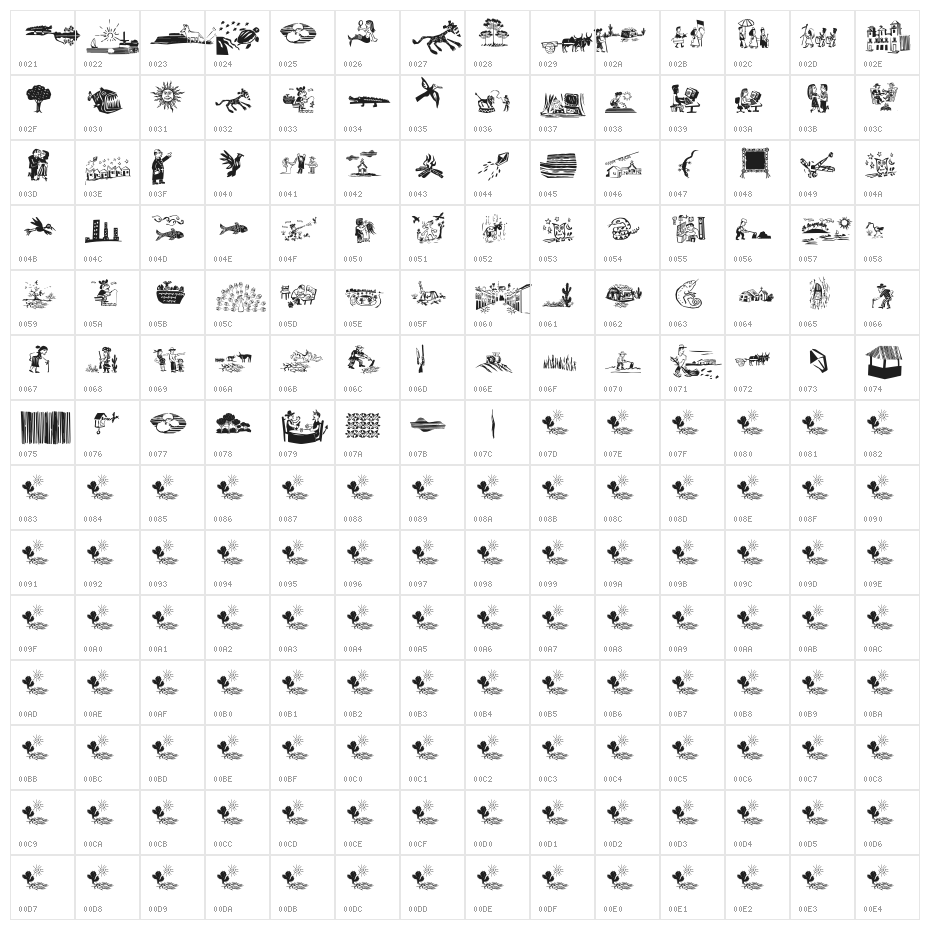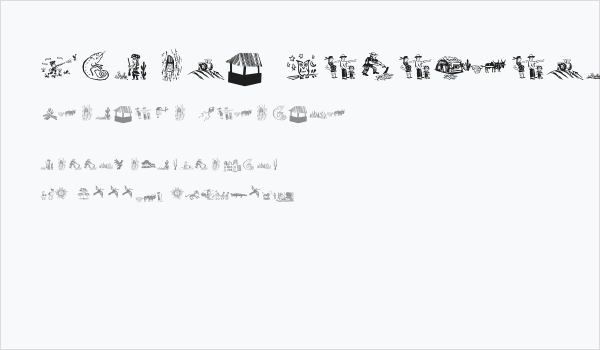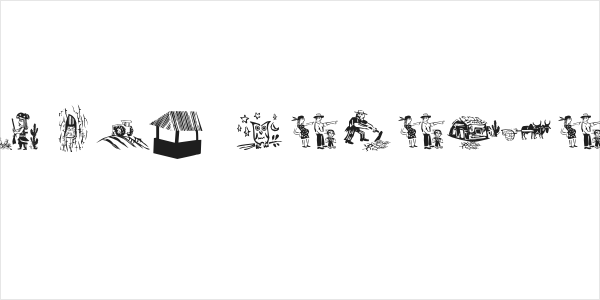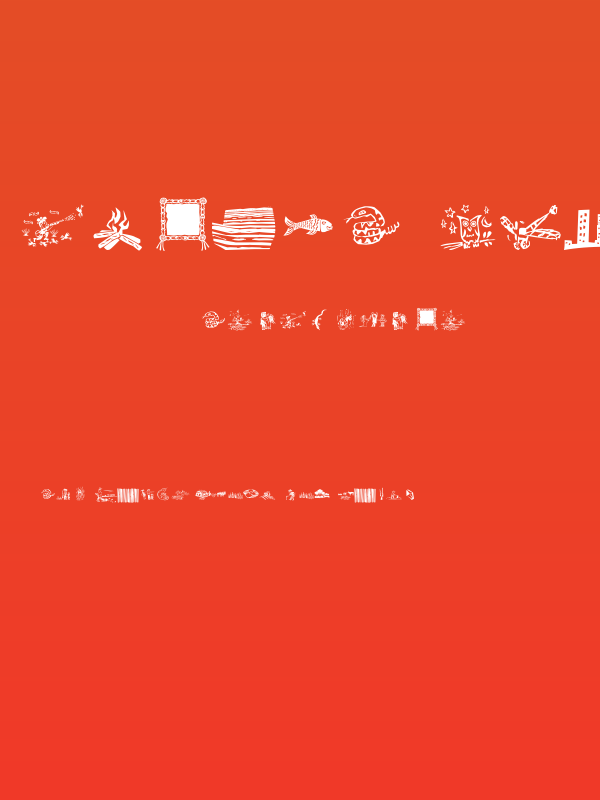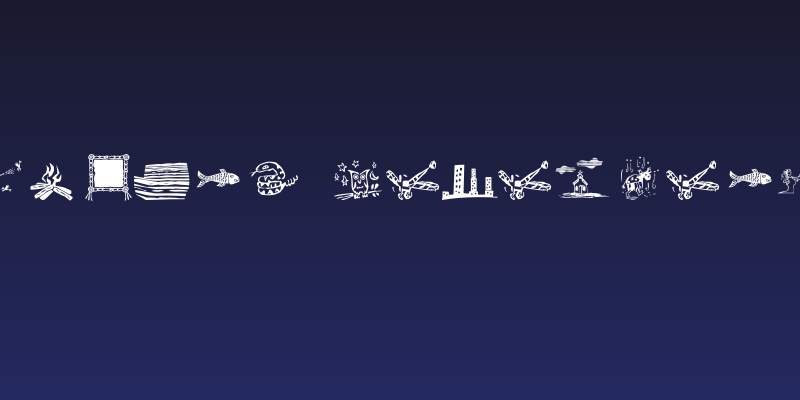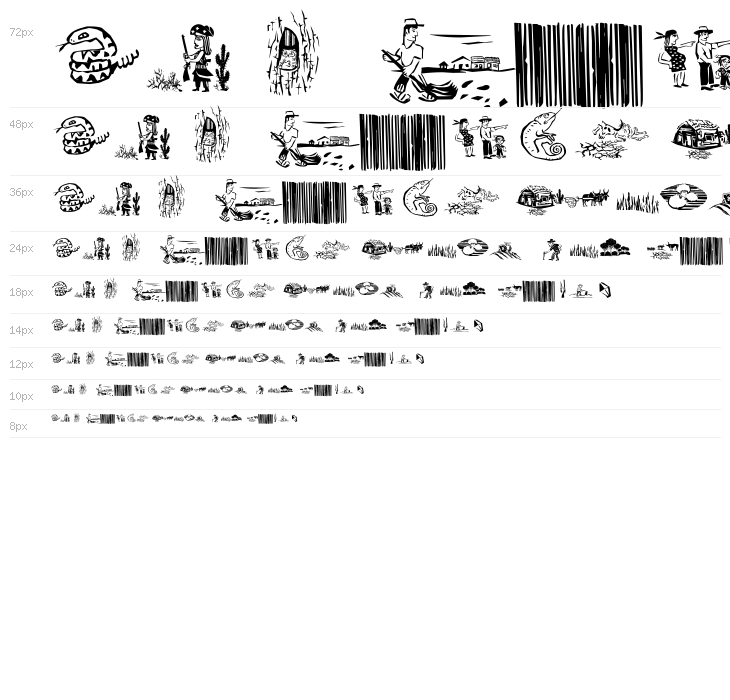
Ochent Silibrina Font
Ochent Silibrina Description
A decorative font composed of repeating desert-themed illustrations, featuring a cactus, sun, and ground elements, rather than traditional alphanumeric characters.
| Overall Style | Decorative, Thematic |
| Use Case | Borders, Decorative accents |
| Proposed Projects | Borders, dividers, themed invitations, posters, or graphic design accents. |